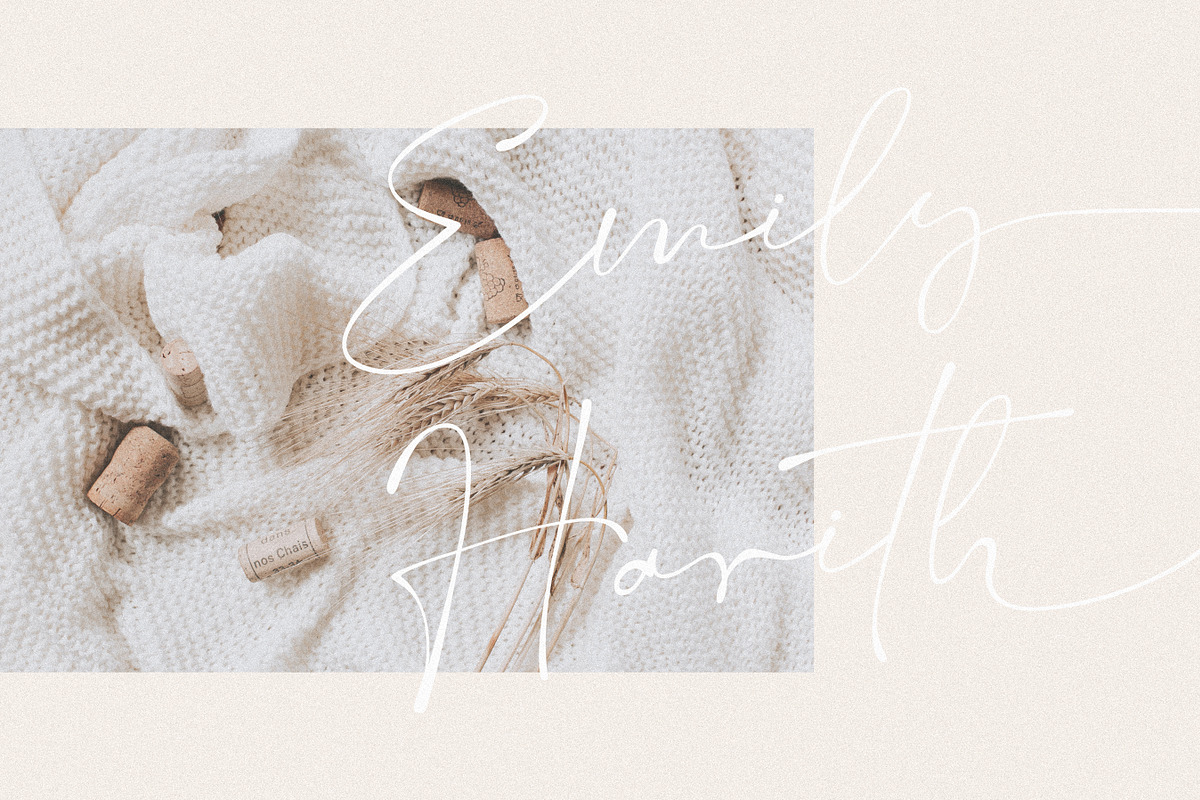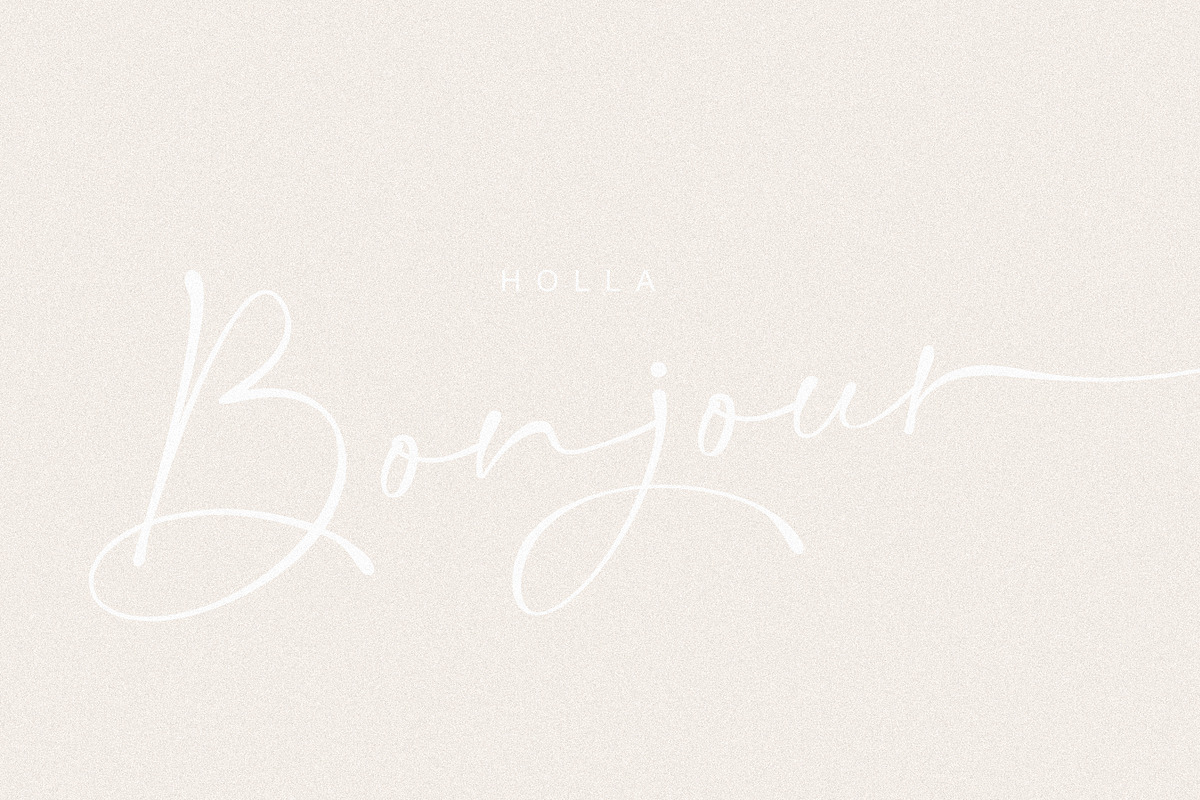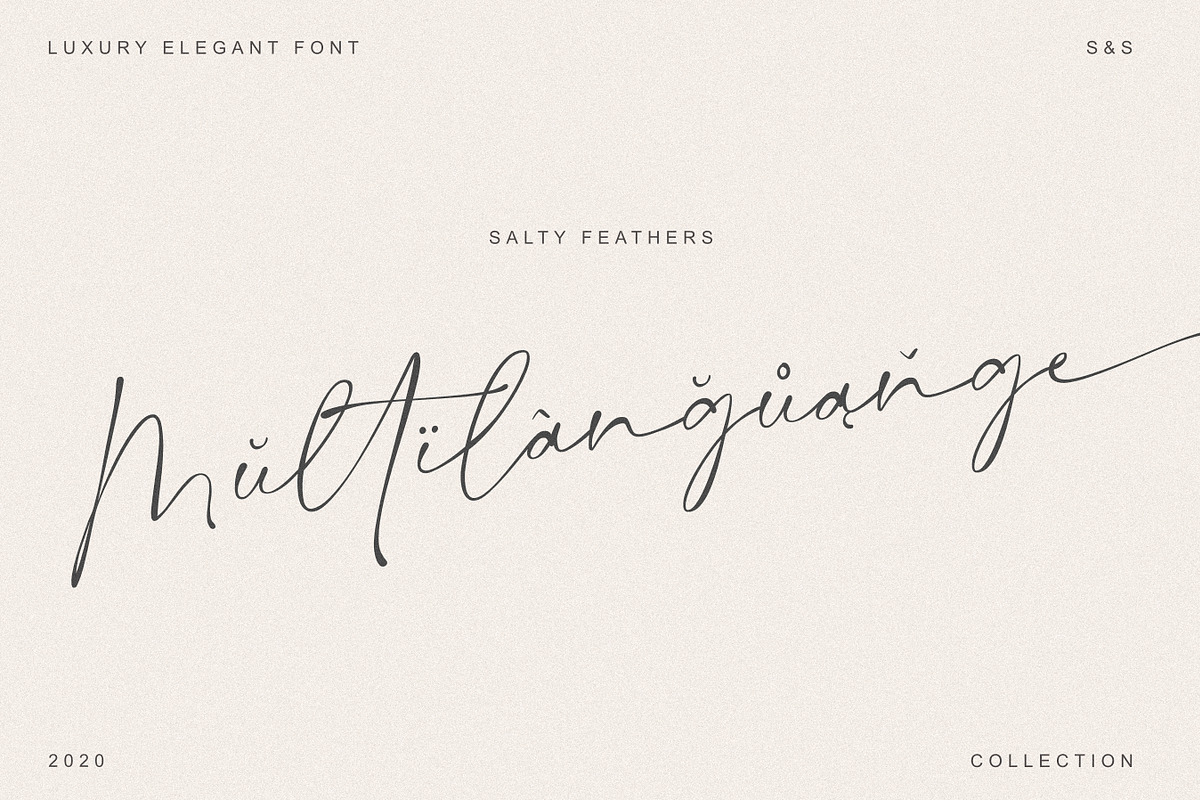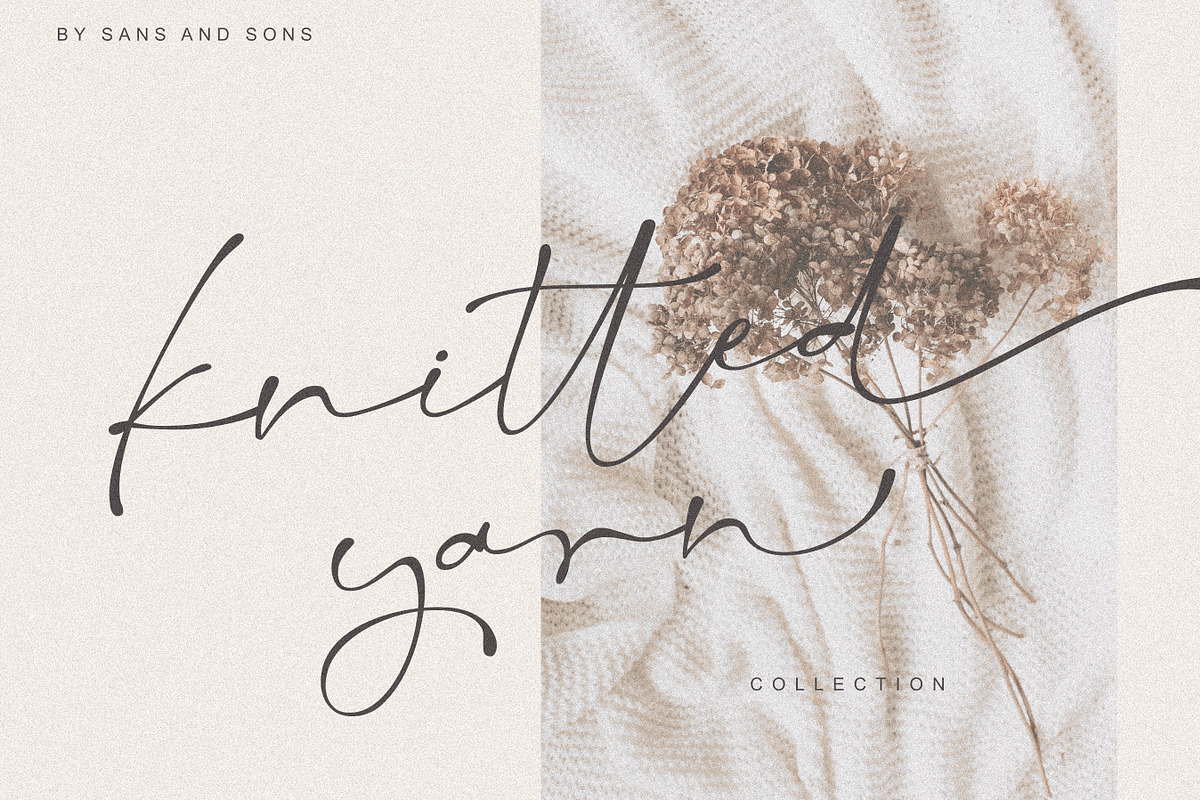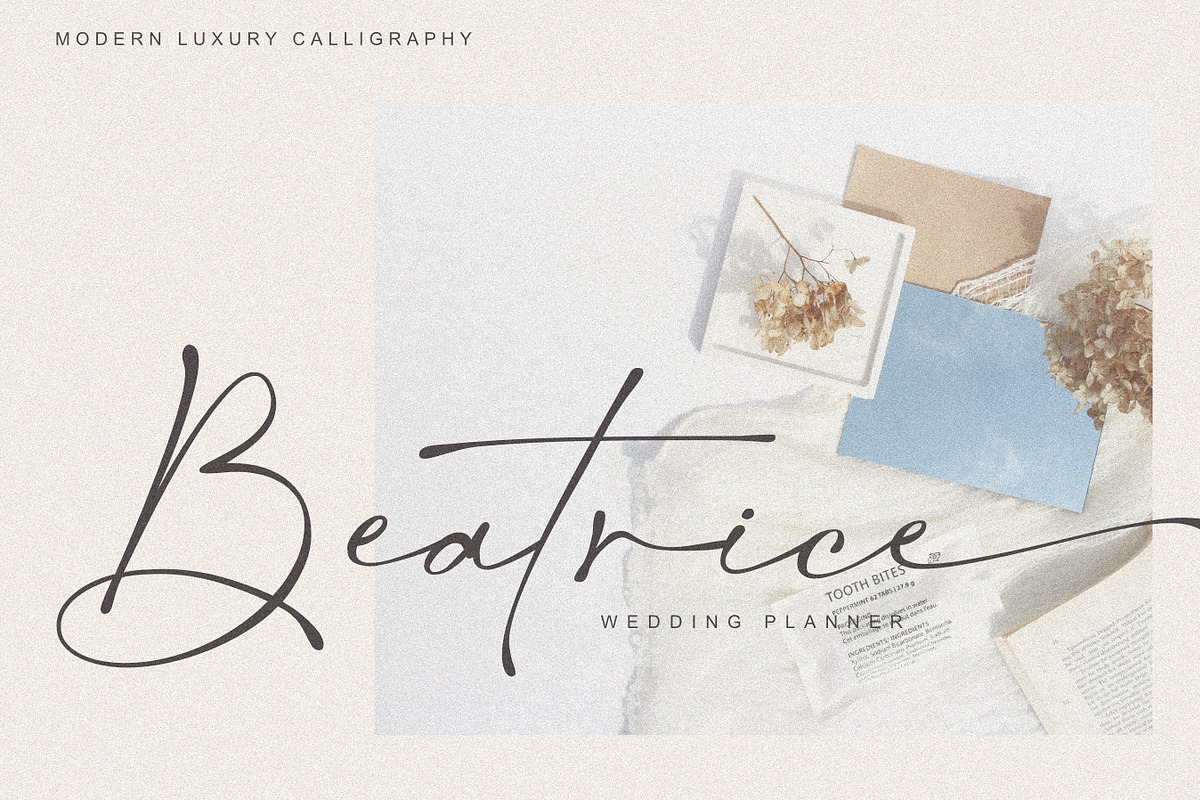
Salty Feathers - Modern Script
Salty Feathers - Elegant Luxury Font by Sans & Sons
Salty Feathers includes full set of uppercase and lowercase letters, multilingual symbols, numerals, punctuation, alternates, swash and ligatures. The font has organic smooth wet ink texture with Modern Elegant Style this is perfect for branding, logos, invitation, masterheads and more.
Salty Feathers Features :
- Multilanguange